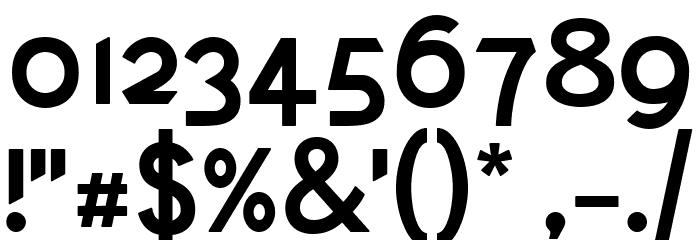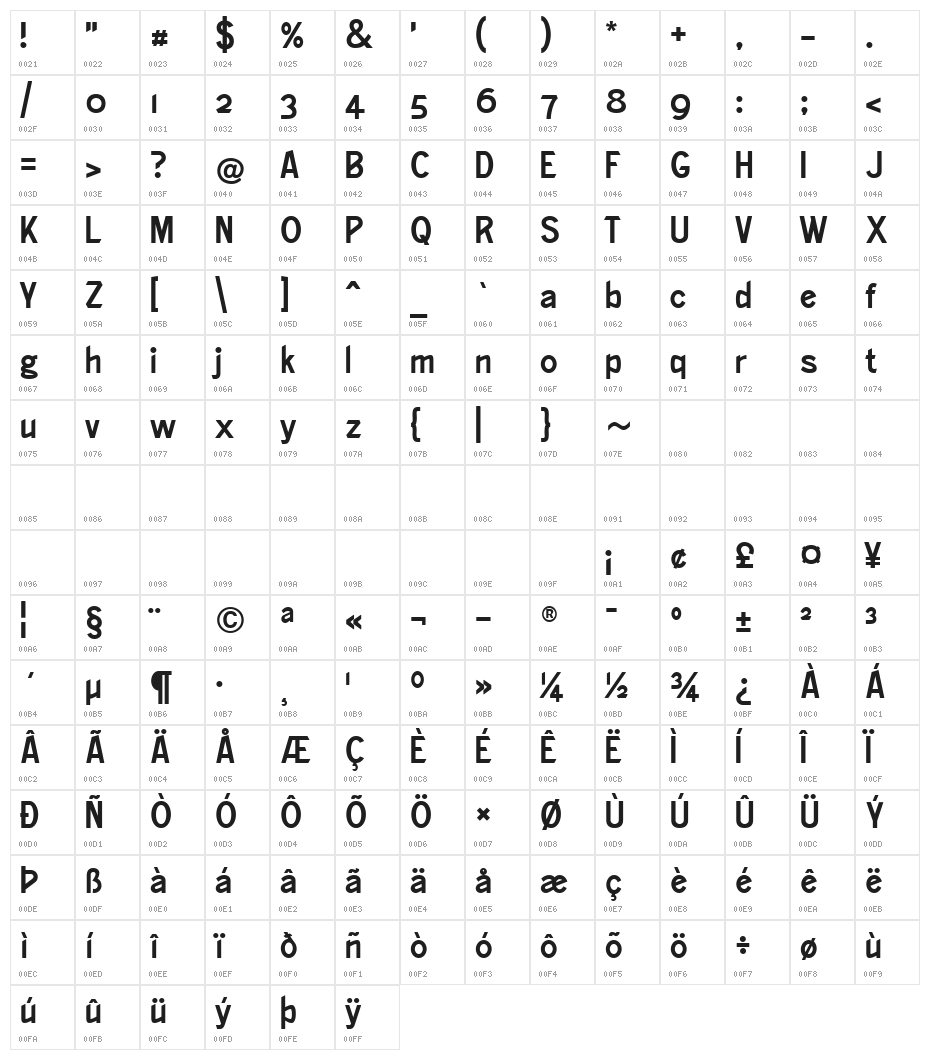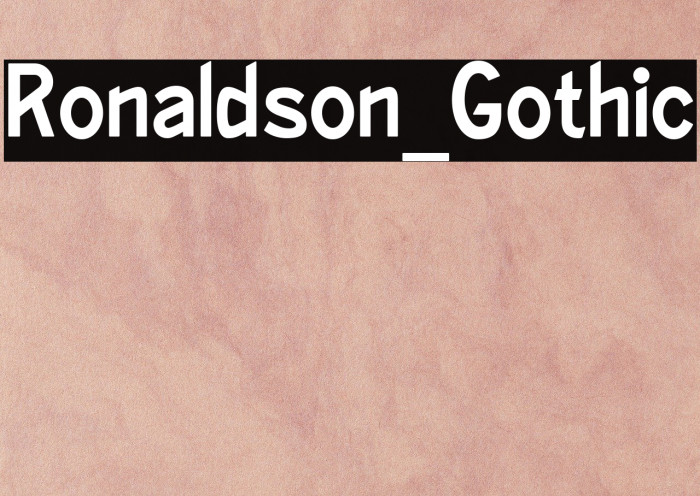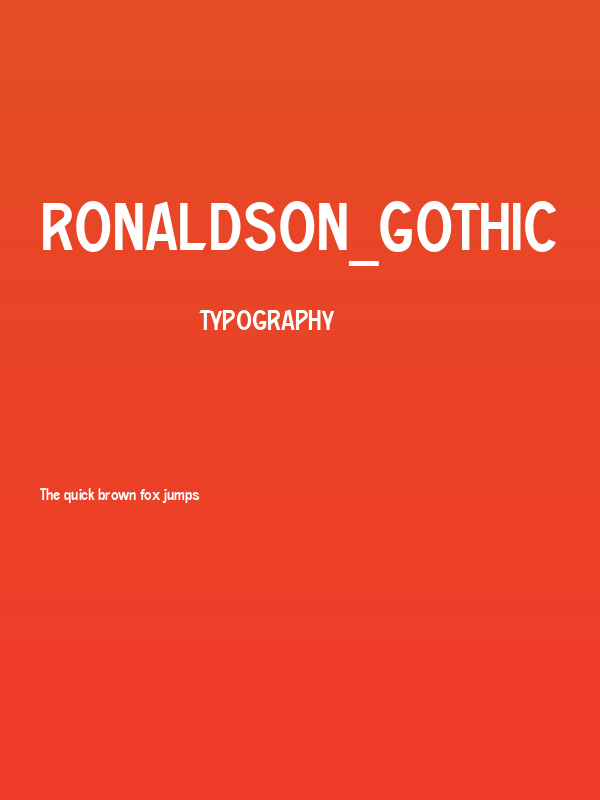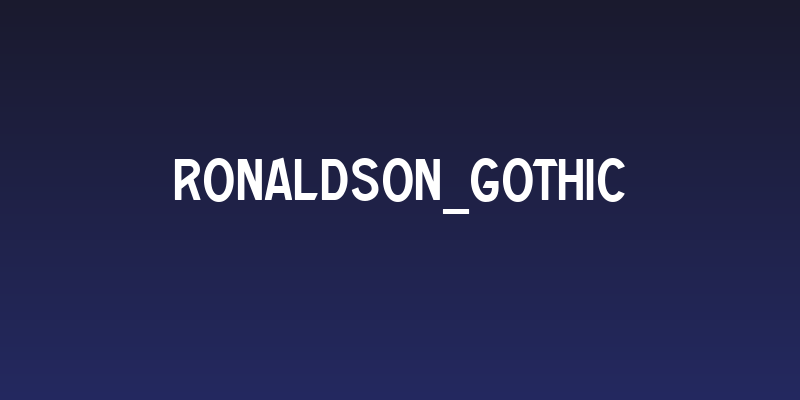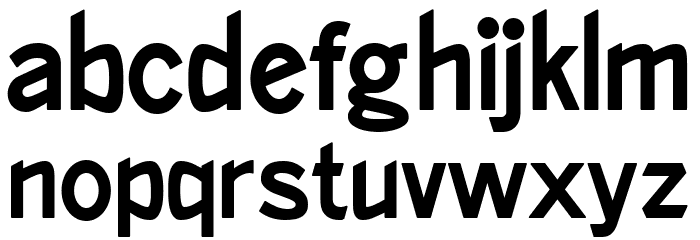
Ronaldson_Gothic Font
Ronaldson_Gothic Description
This font features a bold and robust design, characterized by its strong geometric shapes and clean lines. The uppercase letters are uniform in height, providing a sense of stability and balance. The lowercase letters maintain a consistent style, with rounded edges that add a touch of softness to the overall appearance. The numerals are clear and legible, making them suitable for various applications. Special characters are well-defined, ensuring versatility in design projects. The font's modern aesthetic makes it ideal for contemporary branding and advertising.